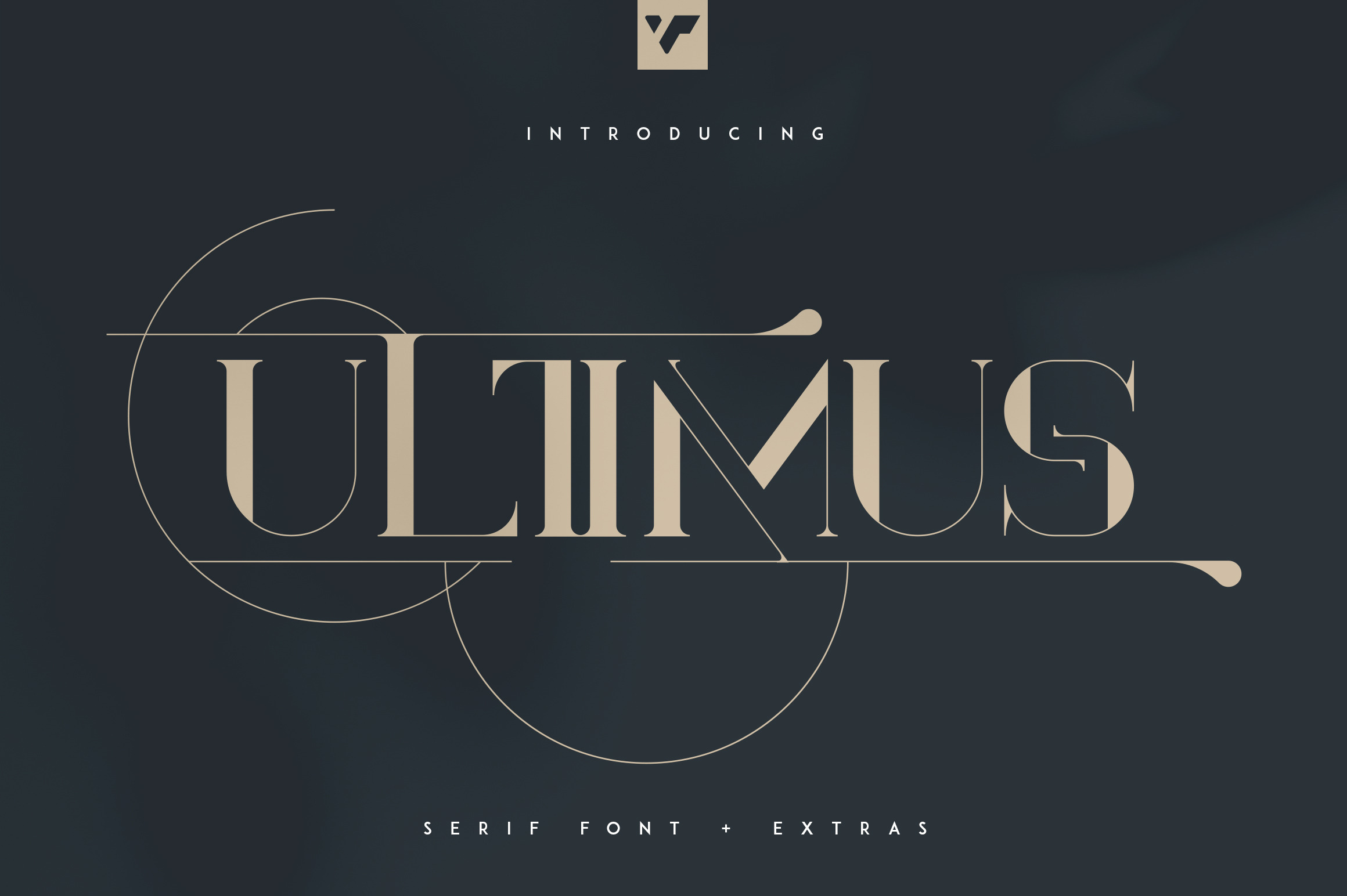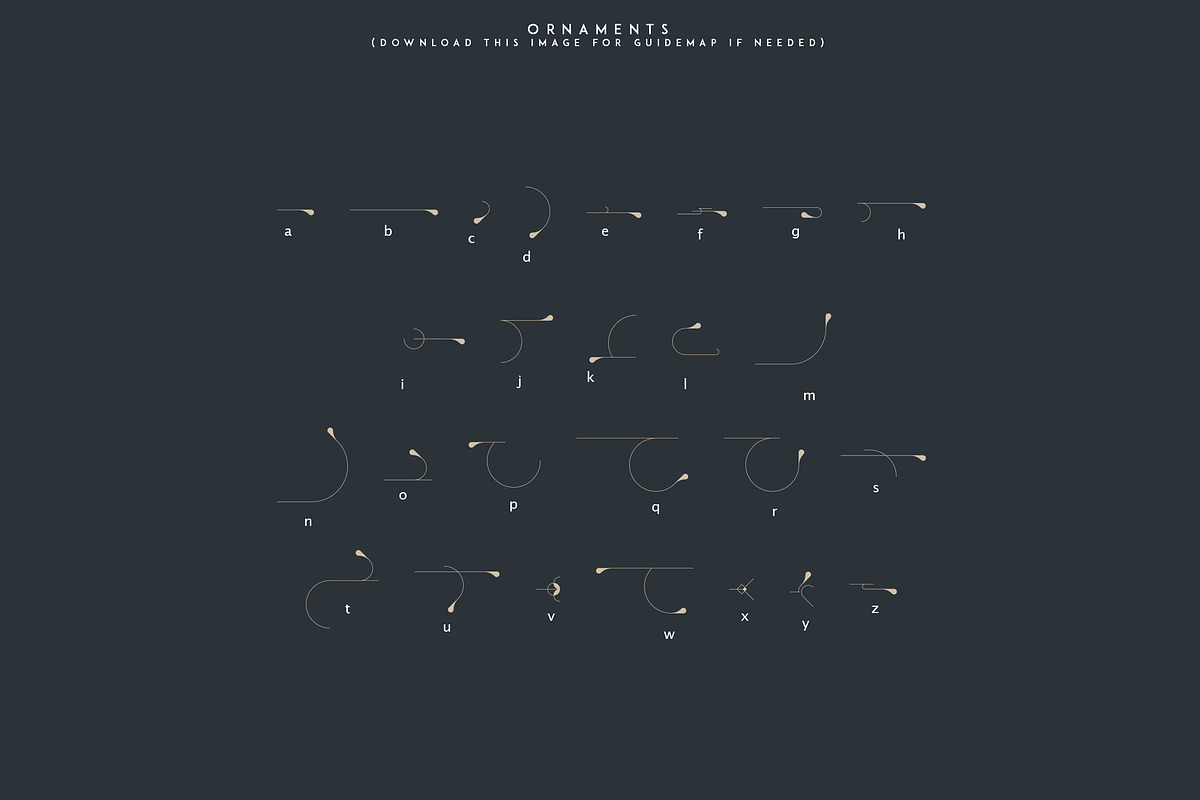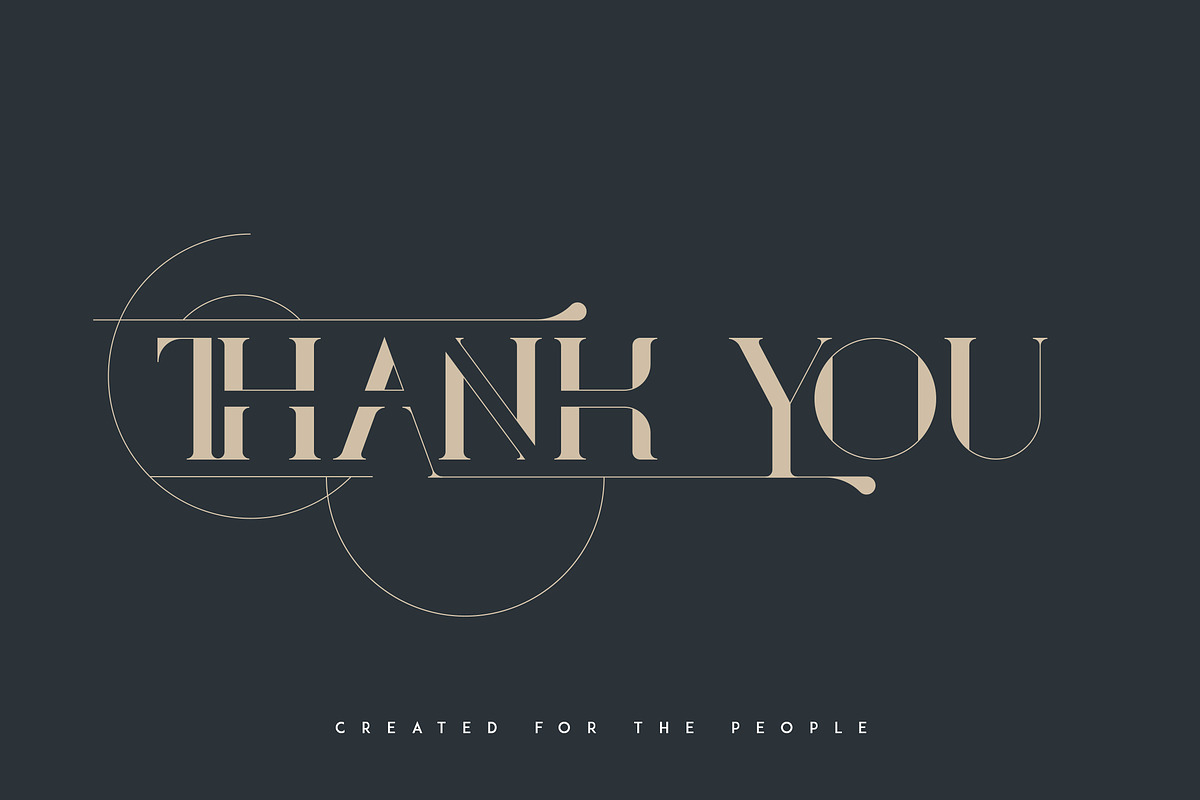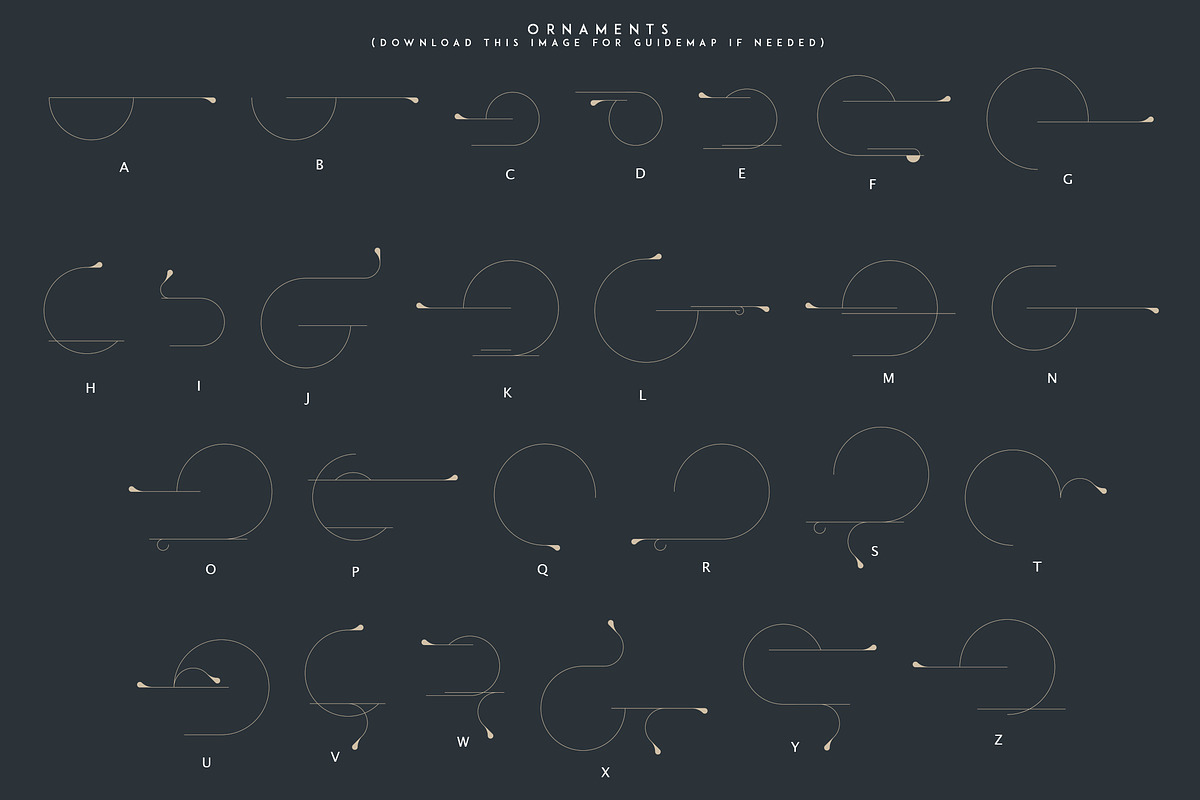
Ultimus serif font + Extras
Ultimus is elegant, clean font with 52 ornaments, alternative and ligature glyphs, and multilingual support. It's a very versatile font that works great in large and small sizes.
Ultimus is perfect for branding projects, home-ware designs, product packaging, magazine headers - or simply as a stylish text overlay to any background image.
- Uppercase,lowercase, numeral,punctuation & Symbol
- Clean
- Alternative glyphs
- 52 Ornaments